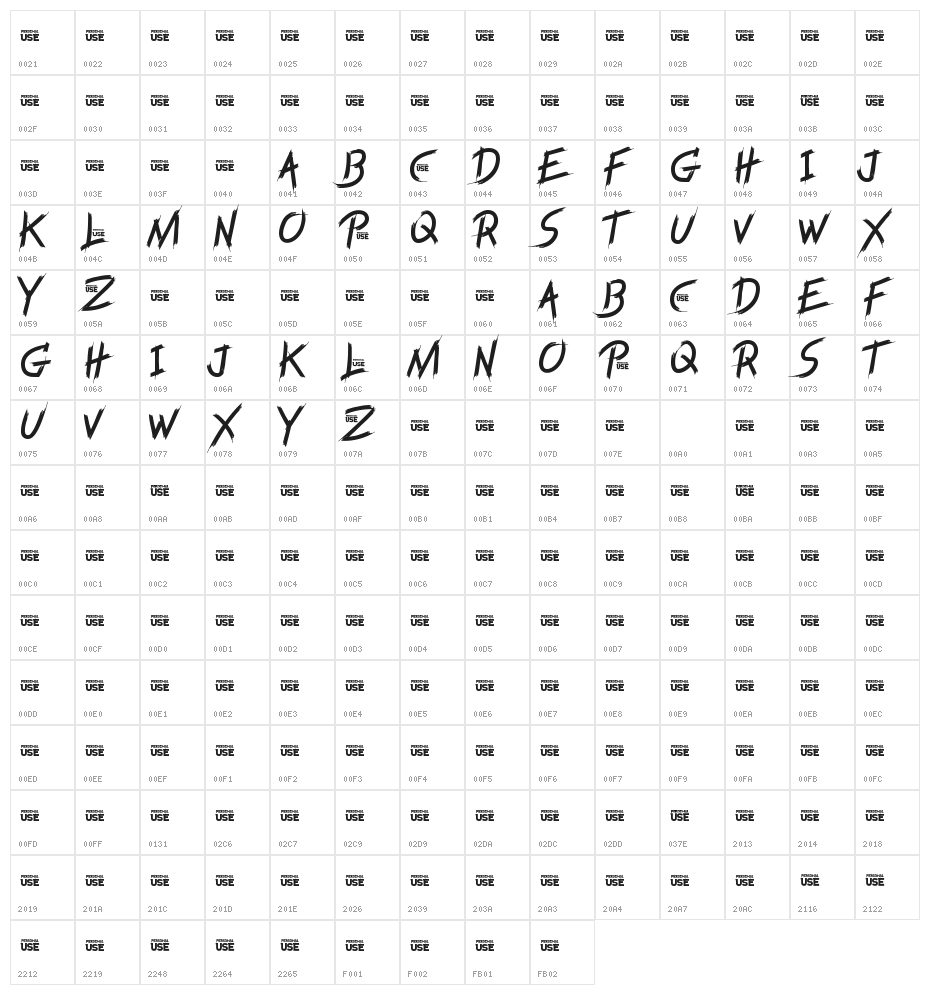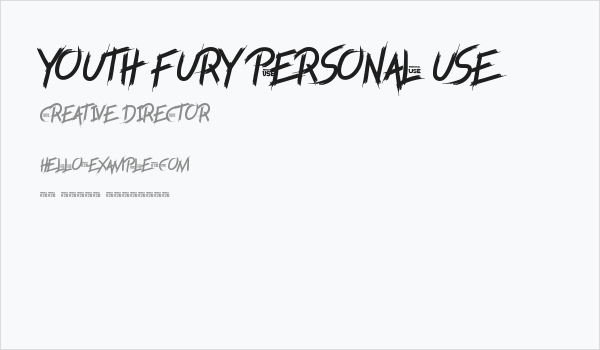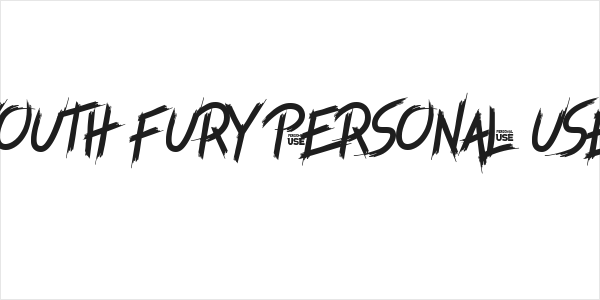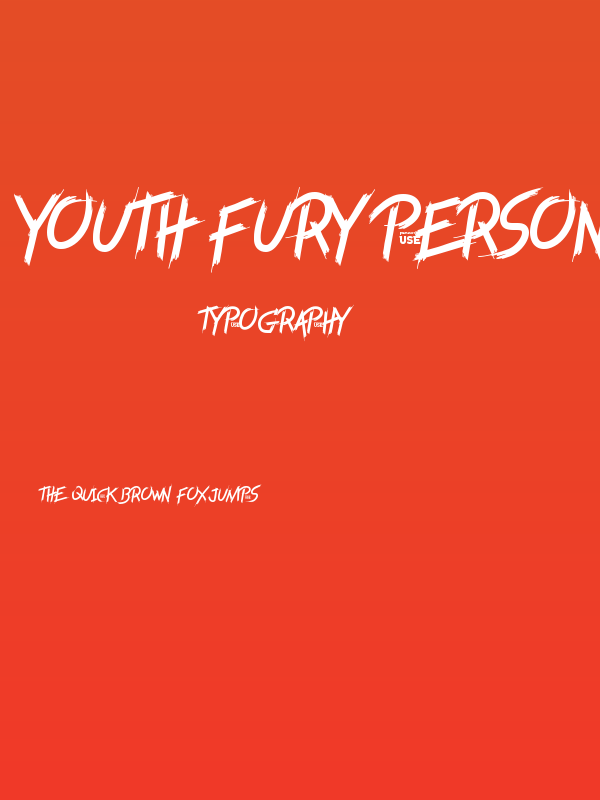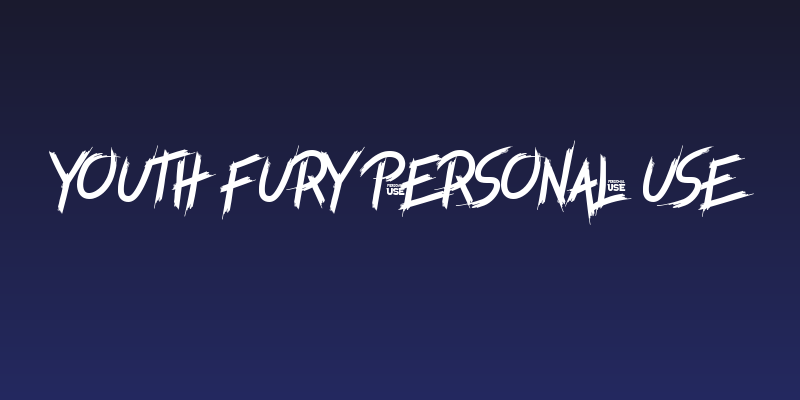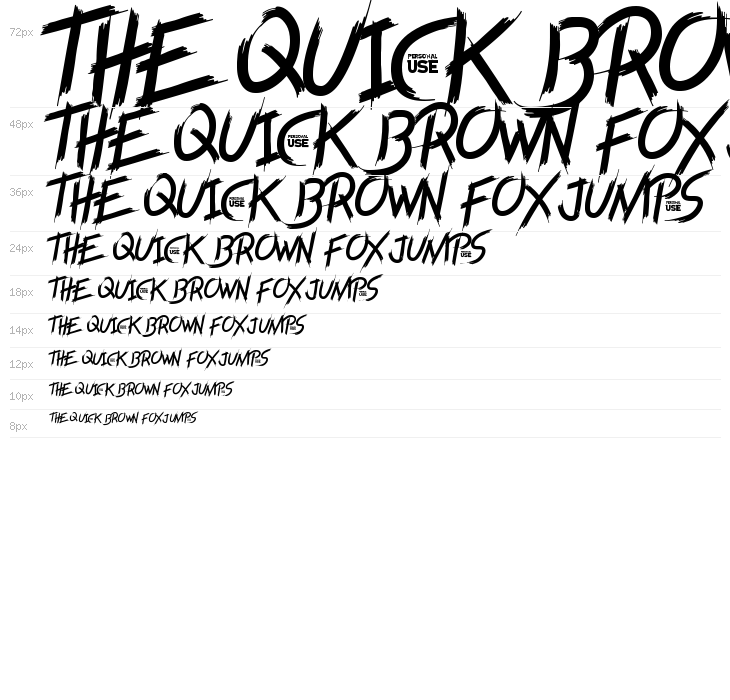
Youth Fury PERSONAL USE Font
Youth Fury PERSONAL USE Description
This font features a dynamic and aggressive style, characterized by sharp, jagged edges and a brush-like appearance. The letters are bold and convey a sense of energy and movement, making them stand out prominently. The strokes vary in thickness, adding to the font's edgy and rebellious aesthetic. It is designed to capture attention and evoke a sense of urgency or excitement. The overall look is modern and unconventional, suitable for projects that require a bold statement.
| Proposed Projects | Ideal for music album covers, sports team logos, event posters, and streetwear branding. |